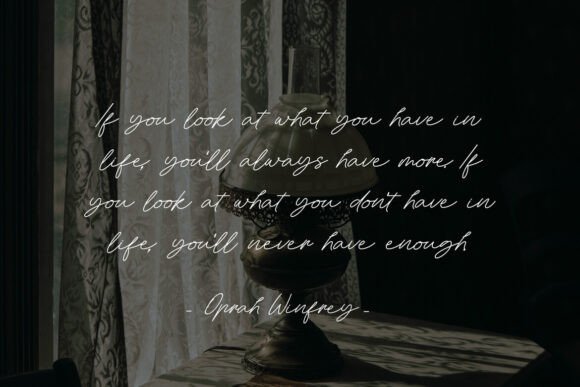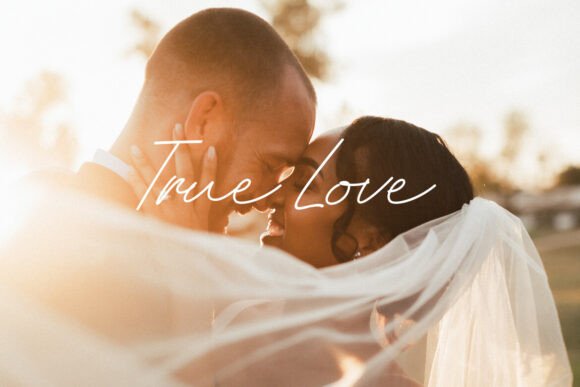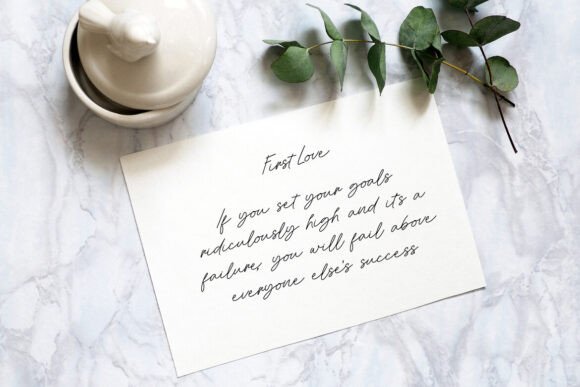
Amandine Monoline Font: Free Download Now
Introduction to Amandine Monoline Font
Amandine Monoline Modern Elegant Script Font.
The modern display font feels beautiful classy, elegant, and stylish This font is ideally suited for a wide variety of projects, such as signature, stationery, logo, wedding, typography quotes, magazine or book covers, website headers, branding, and more.
Amandine Monoline Font offers exceptional quality and versatility, making it a valuable addition to your design toolkit. Whether you’re creating for personal projects or commercial use, Amandine Monoline Font delivers professional results.